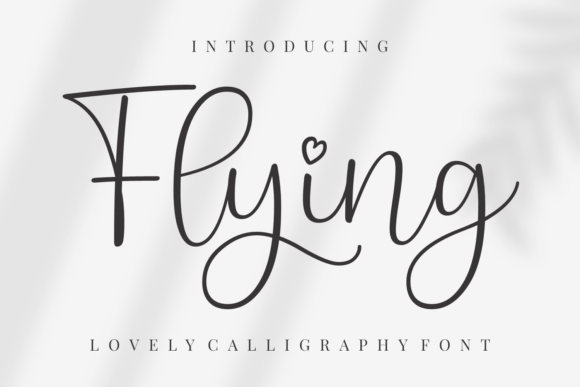
Prepare to be spellbound by Flying Font, a captivating script font that will infuse your designs with an aura of elegance and charm. Inspired by the timeless beauty of calligraphy, Flying Font seamlessly blends classic and modern aesthetics, making it an ideal choice for creating stunning magazine covers that leave a lasting impression.
Step into a world of sophistication and style as you effortlessly glide your cursor across the screen, bringing your creative vision to life. With Flying Font, every word you type transforms into a piece of art, leaving your audience captivated by its intricate details and graceful flow.
Unleash your inner artist and explore the boundless possibilities that await you with Flying Font. Its meticulously crafted curves and delicate flourishes lend a touch of timeless elegance to your designs, ensuring that your magazine covers stand out from the crowd.
Whether you're designing for a fashion magazine, a travelogue, or a lifestyle publication, Flying Font is the ultimate tool for crafting covers that exude sophistication and allure. Its versatility knows no bounds, allowing you to effortlessly adapt it to any theme or style, creating covers that resonate with your target audience.
Join the ranks of creative professionals who have discovered the transformative power of Flying Font. Let your imagination soar and watch as your magazine covers take flight, captivating readers with their undeniable charm and beauty.